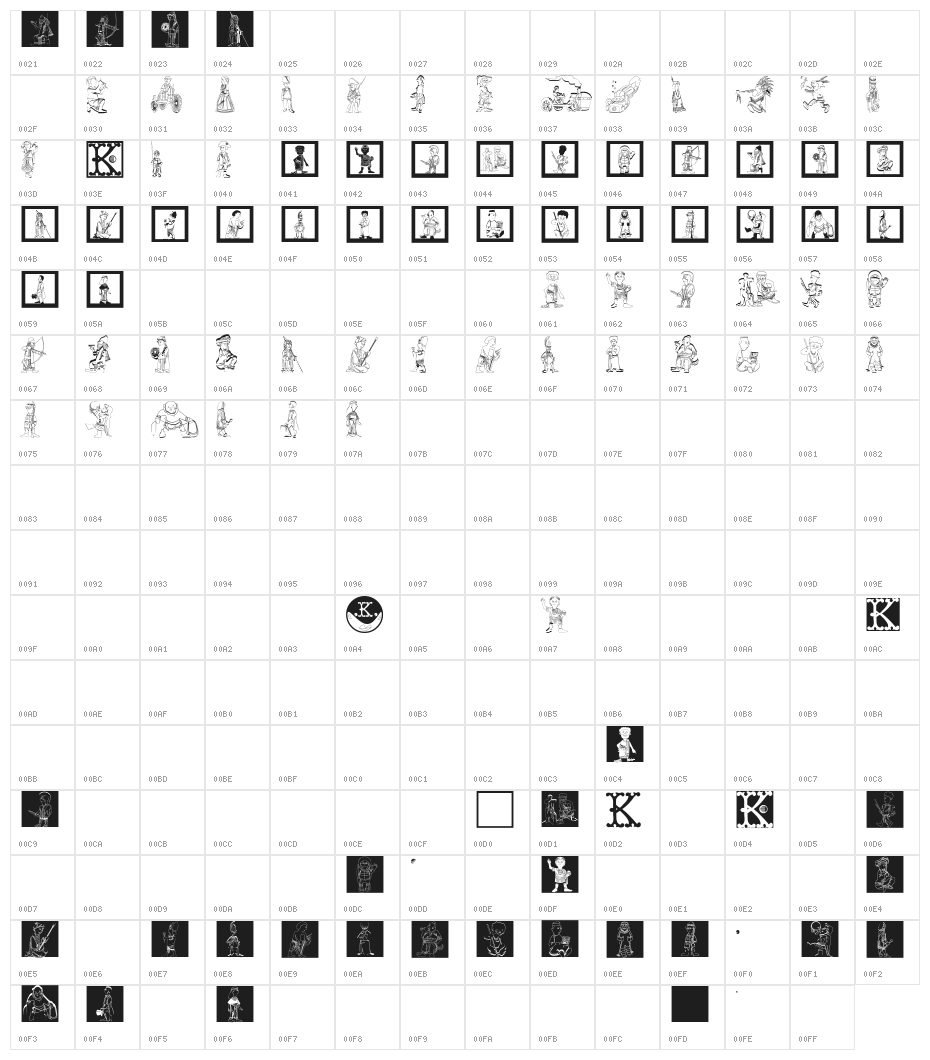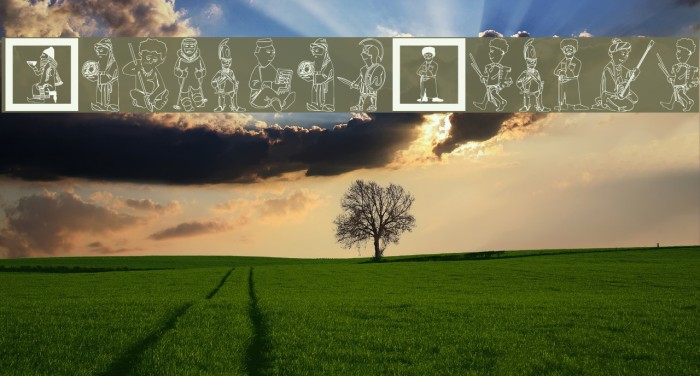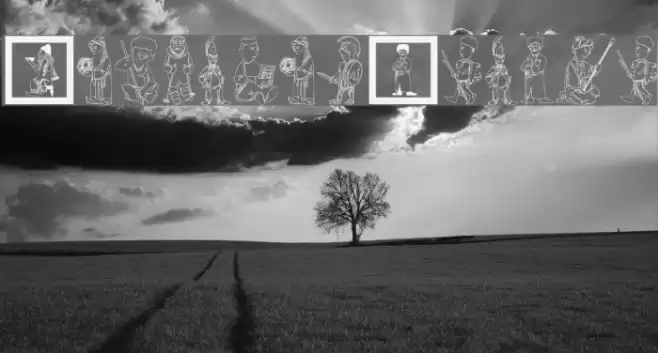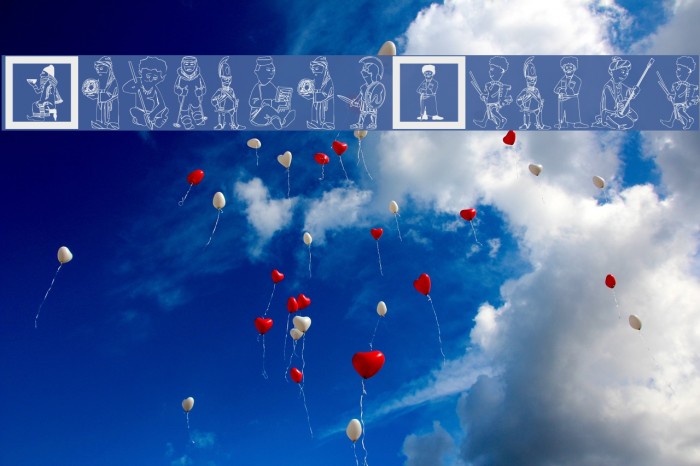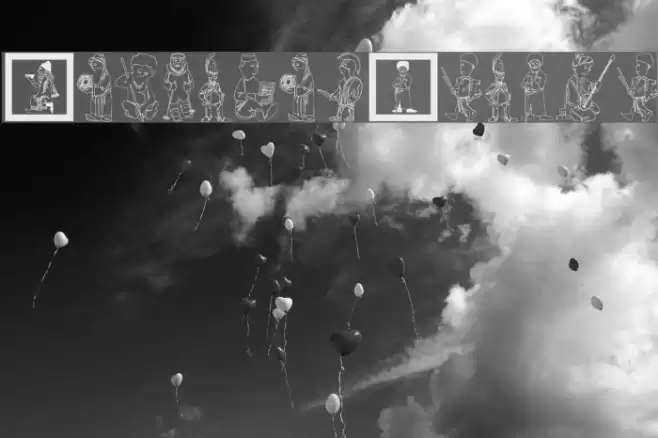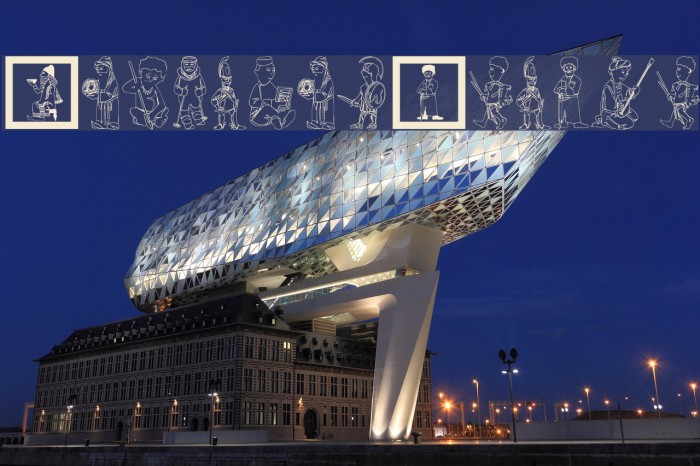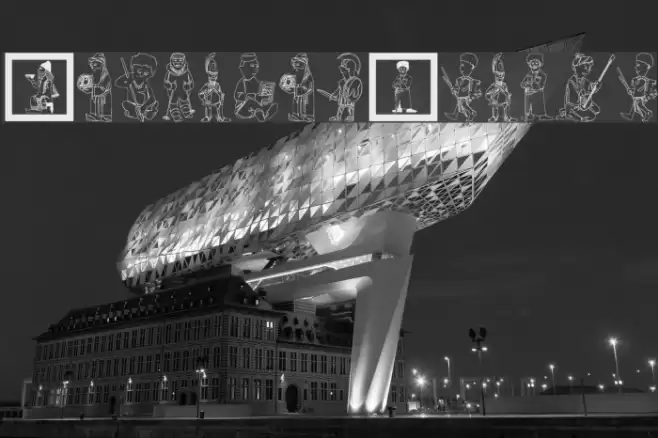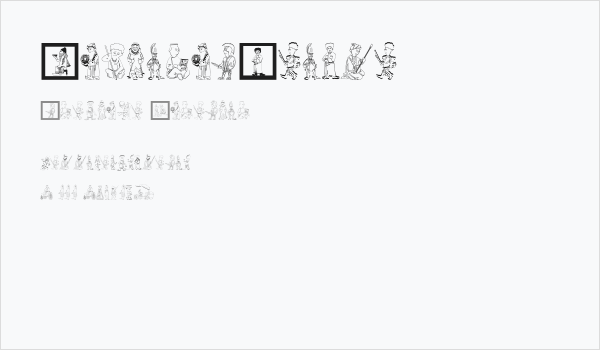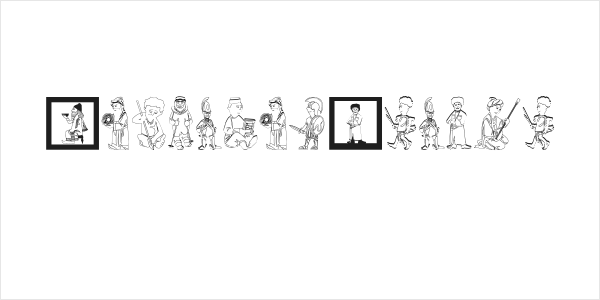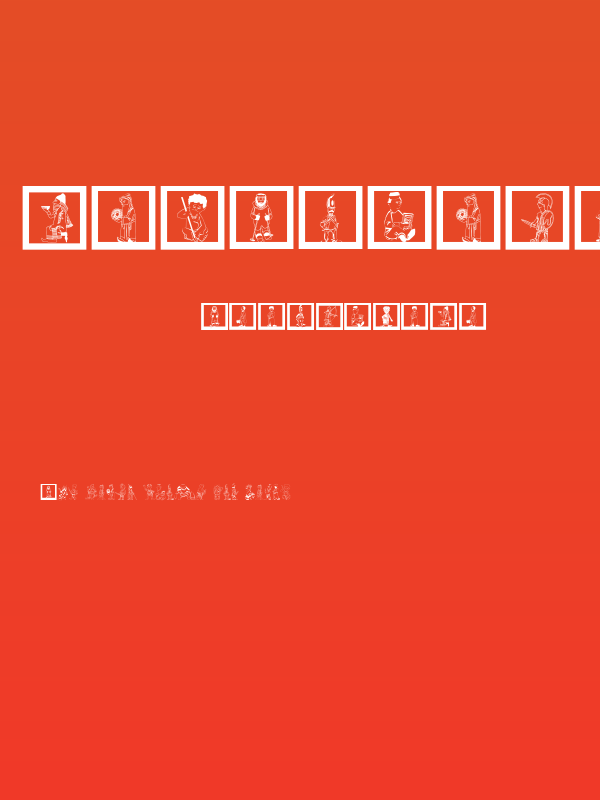
HistoricPeople Font
HistoricPeople Description
A playful, hand-drawn decorative font where each character is represented by a whimsical illustration of a historic person or figure, featuring varied line thickness and expressive poses. The style is informal, with each letter and number uniquely personified, making the set highly illustrative and thematic.
| Overall Style | Decorative, Playful, Thematic |
| Use Case | Headlines, Posters, Themed Illustrations, Educational Materials |
| Proposed Projects | Educational posters, children's books, history-themed games, creative branding, museum materials. |